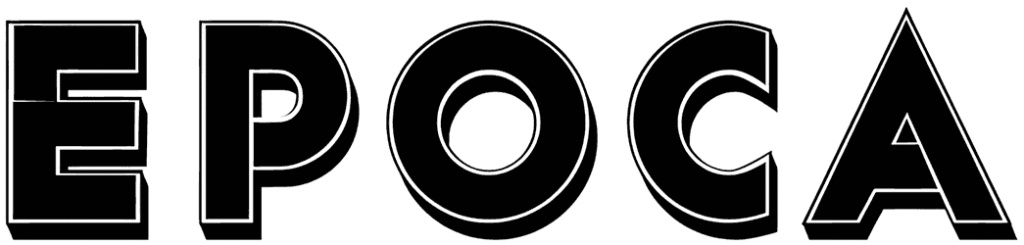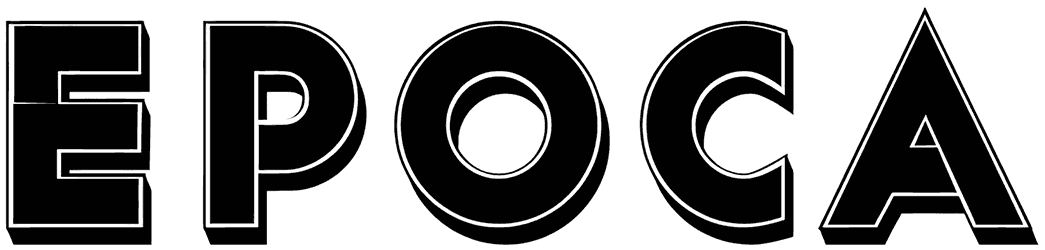
Epoca Font
You may add some serious gravitas to your work with the Epoca, which is a basic shadowed font. Adding some rough edges to your projects couldn’t be easier than with this 3D font, thanks to its unusually bold and 3D letters.
Logos, headlines, titles, and more can all be laid out beautifully with Epoca despite the lack of lowercase letters and numerals. The Epoca font, along with many others, is available free in RB’s font collection, which you may access now.